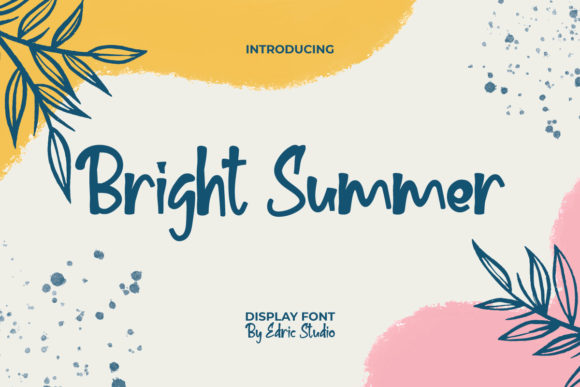
The Elegance of Bright Summer: A Font Review and Guide
I’ll never forget the summer I spent planning my sister’s wedding. As the designated DIY decorator, I was tasked with creating the perfect wedding invitations. I spent hours scouring the internet for the ideal font – something elegant, yet playful; something that would set the tone for a whimsical summer celebration. That’s when I stumbled upon Bright Summer, a beautiful handwritten font that stole my heart. In this article, I’ll share my love for Bright Summer, its features, and provide a comprehensive guide on how to use it in various design platforms.
An Honest Review of Bright Summer
So, what makes Bright Summer so special? Here are a few things I love about this font:
- ✨ Elegant and flowing script that’s perfect for wedding invitations, thank you cards, and quotes
- 💫 Beautifully crafted to give your designs a personal, handwritten touch
- 🎨 Versatile and suitable for a wide range of design projects, from logos to greeting cards
While Bright Summer is an amazing font, it’s not perfect. Here are a few quirks to keep in mind:
- 🤔 Some letters may require manual kerning for optimal spacing
- ⚠️ Limited availability of stylistic alternates, but still offers a range of OpenType features
The Story Behind Bright Summer
Bright Summer was designed by a talented type designer who wanted to create a font that captured the essence of warm summer days. Inspired by handwritten letters and vintage summer posters, Bright Summer was crafted to bring a sense of elegance and playfulness to any design project.
| Font Name | Bright Summer Font |
| Author | EdricStudio |
| What is Bright Summer best used for? | Bright Summer is perfect for wedding invitations, thank you cards, quotes, greeting cards, logos, business cards, and any other design that needs a handwritten touch. |
| Is Bright Summer suitable for body text? | While Bright Summer is beautiful, it’s best used for headings and titles. For body text, consider a more legible font. |
| Does Bright Summer support OpenType features? | Yes, Bright Summer offers a range of OpenType features, including ligatures and stylistic alternates. |